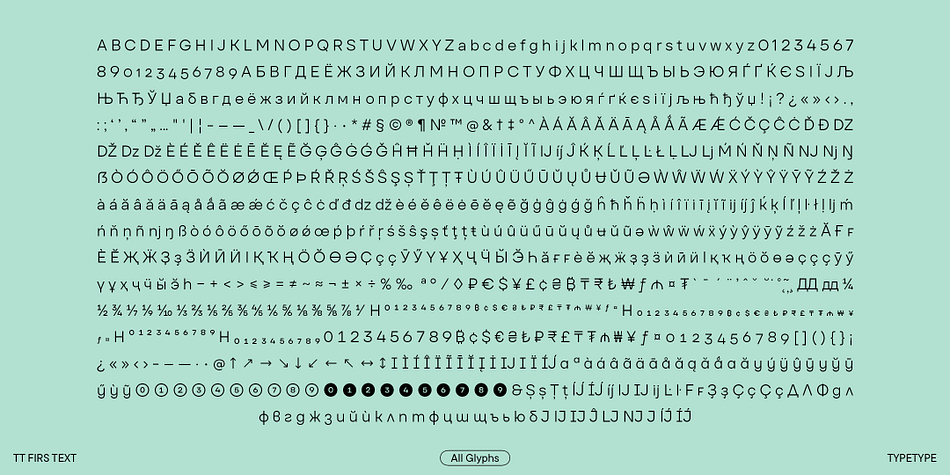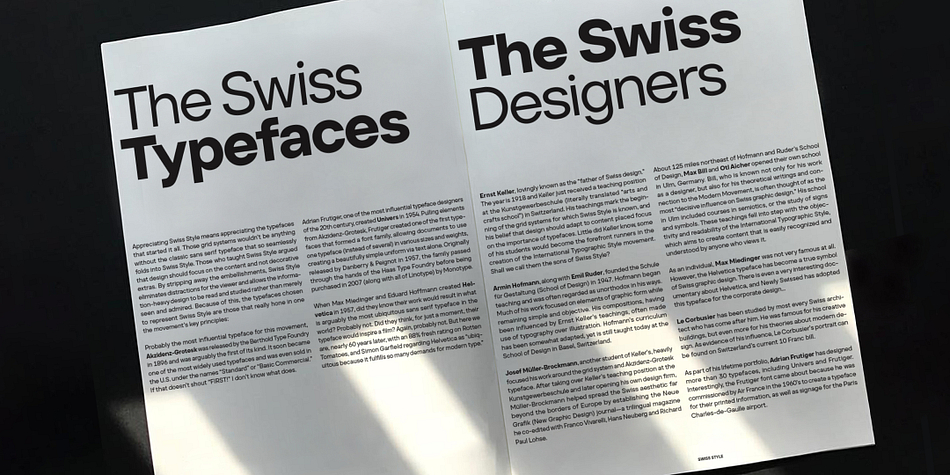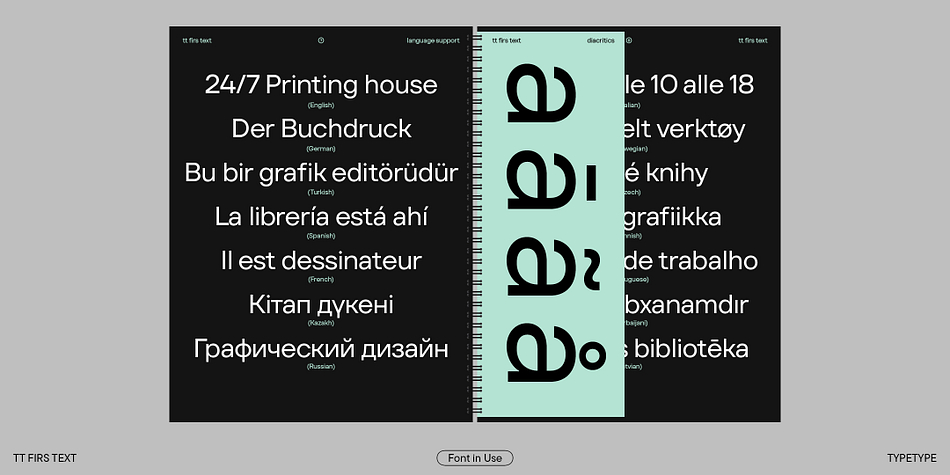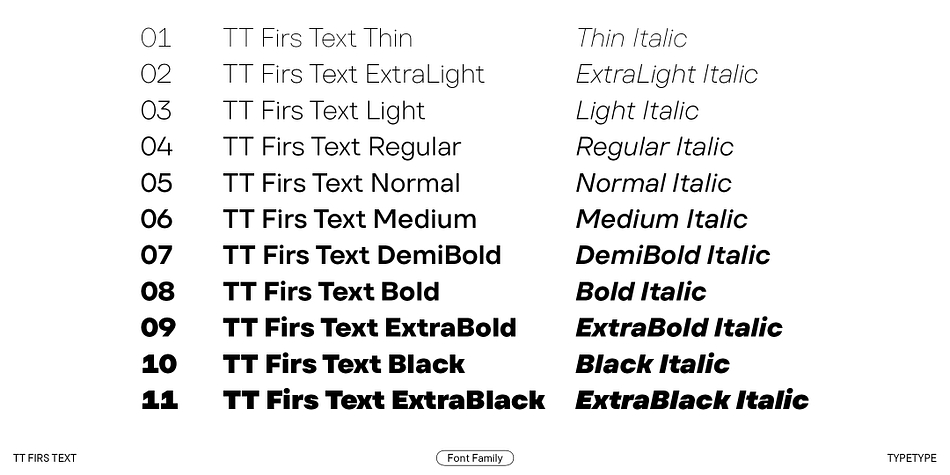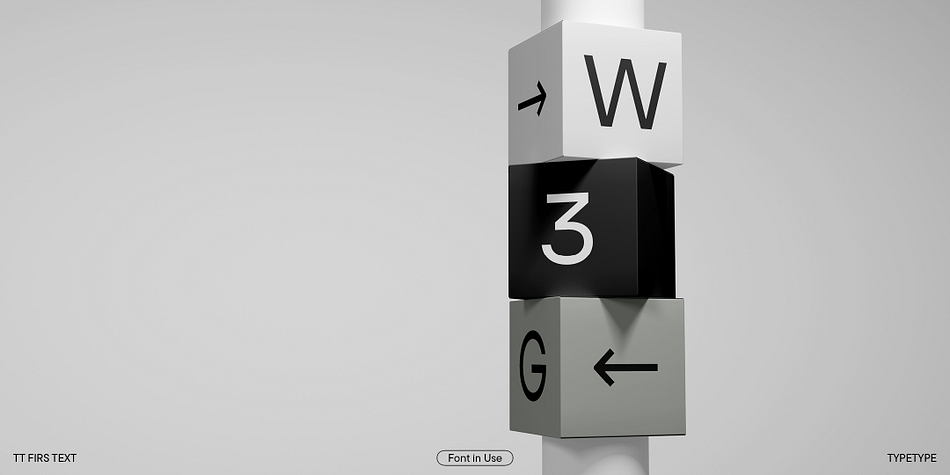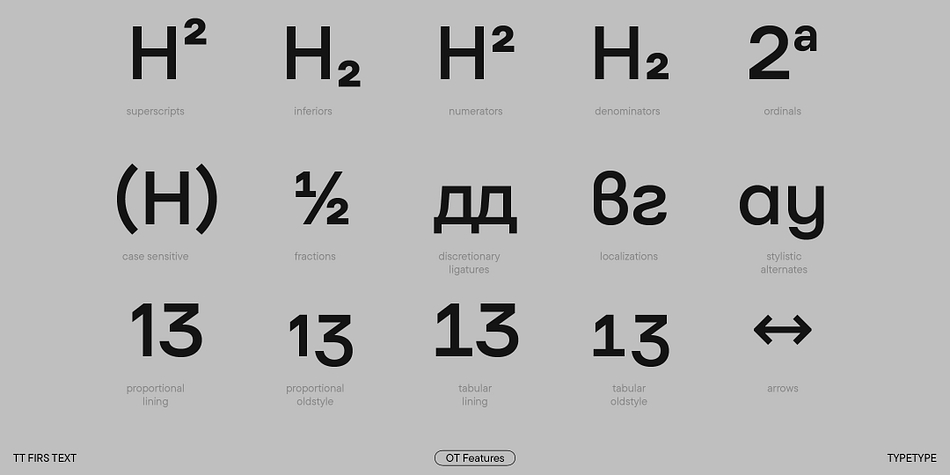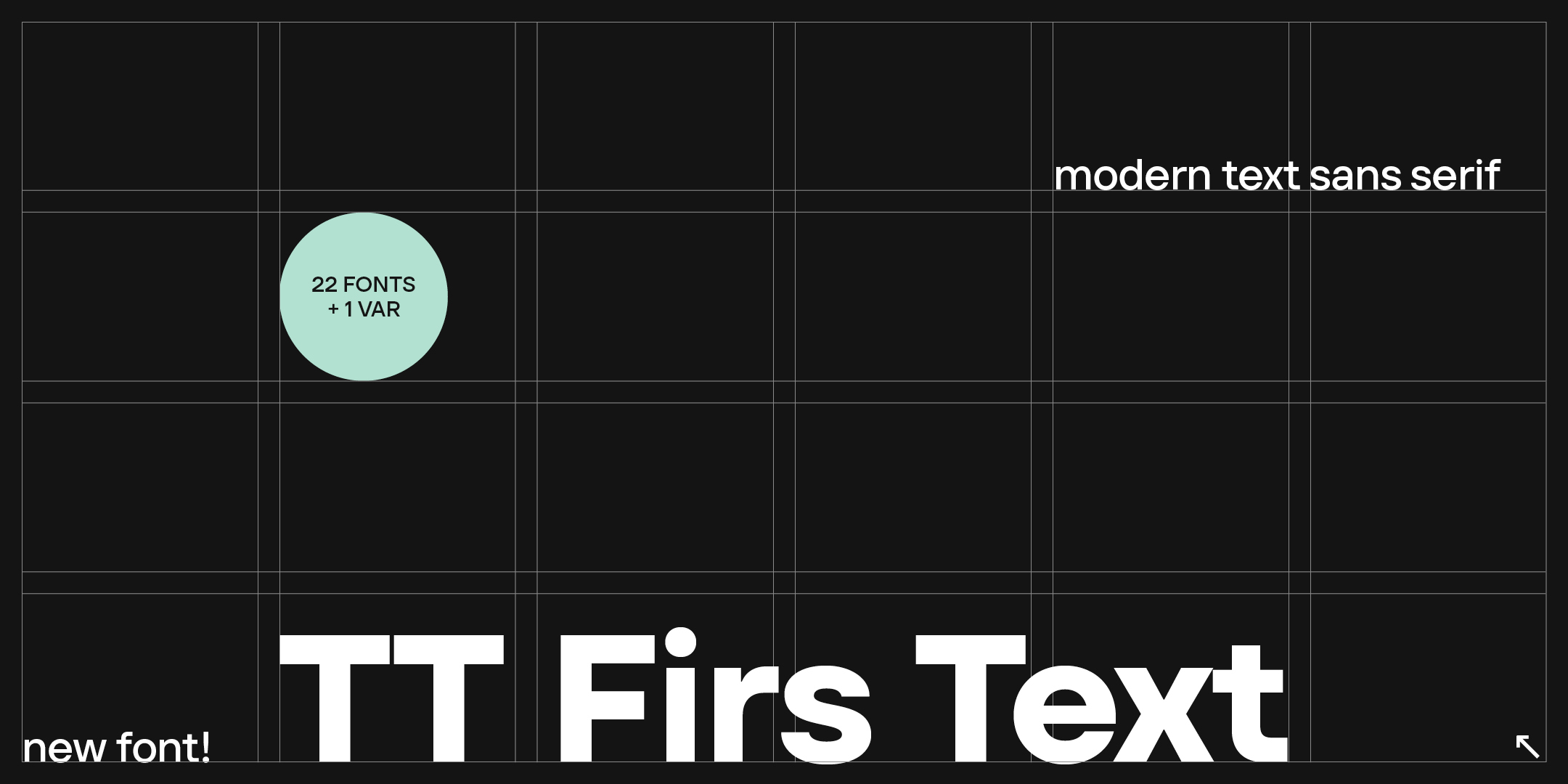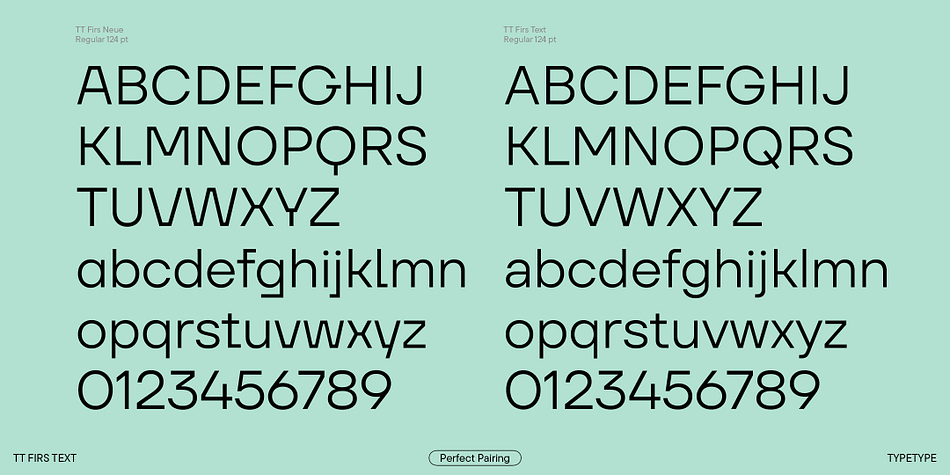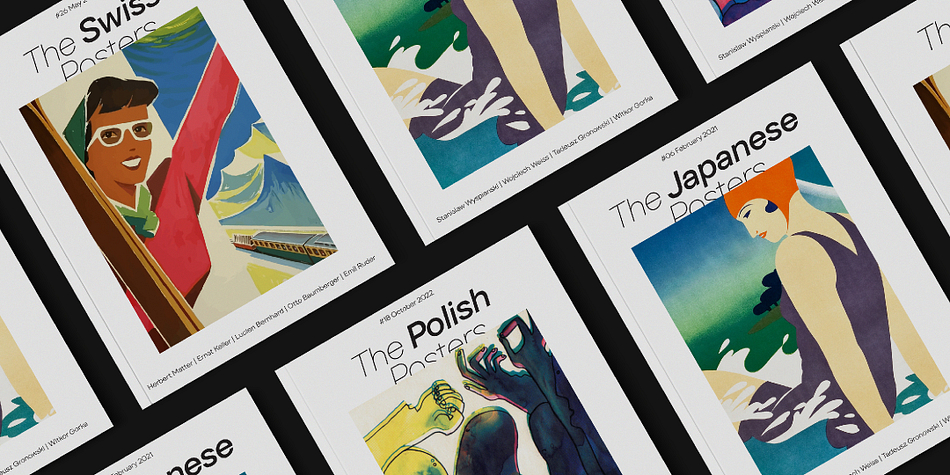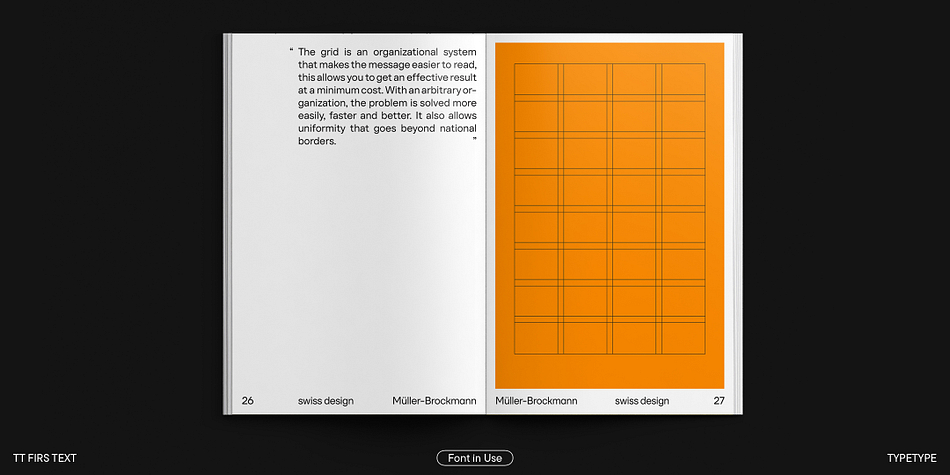
TT Firs Text
Designed by Marina Khodak, TypeType Team and Toma Streltsova, TT Firs Text is a sans serif font family. This typeface has twenty-three styles and was published by Typetype.
TypeType’s new elegant geometric sans serif with a Nordic character—TT Firs Text!
TT Firs Text’s design was based on the TT Firs Neue typeface that we updated in 2023. We aspired to make it even more neutral, making it stand out with its own unique style at the same time.
Keeping the Scandinavian minimalism aesthetics, we redesigned all expressive elements giving them a more smooth and more traditional look. Due to more standardized text typing, the font remains legible and readable even if a small point size is chosen for typing the text block.
TT Firs Text turned out to be icy and elegant, strict and captivating, and, what is more, highly versatile. It is equally well-suited for websites, book printing, branding, packaging design, and various kinds of posters. There’s almost no limit to how it can be applied.
TT Firs Text includes 23 font styles: 11 roman, 11 italic, and 1 variable font. Each font style consists of 898 characters, counting in the characters of the expanded Latin and Cyrillic writing systems. The font has 31 OpenType features, among which are localization features for various languages, circled numerators, and stylistic alternate for the ampersand.